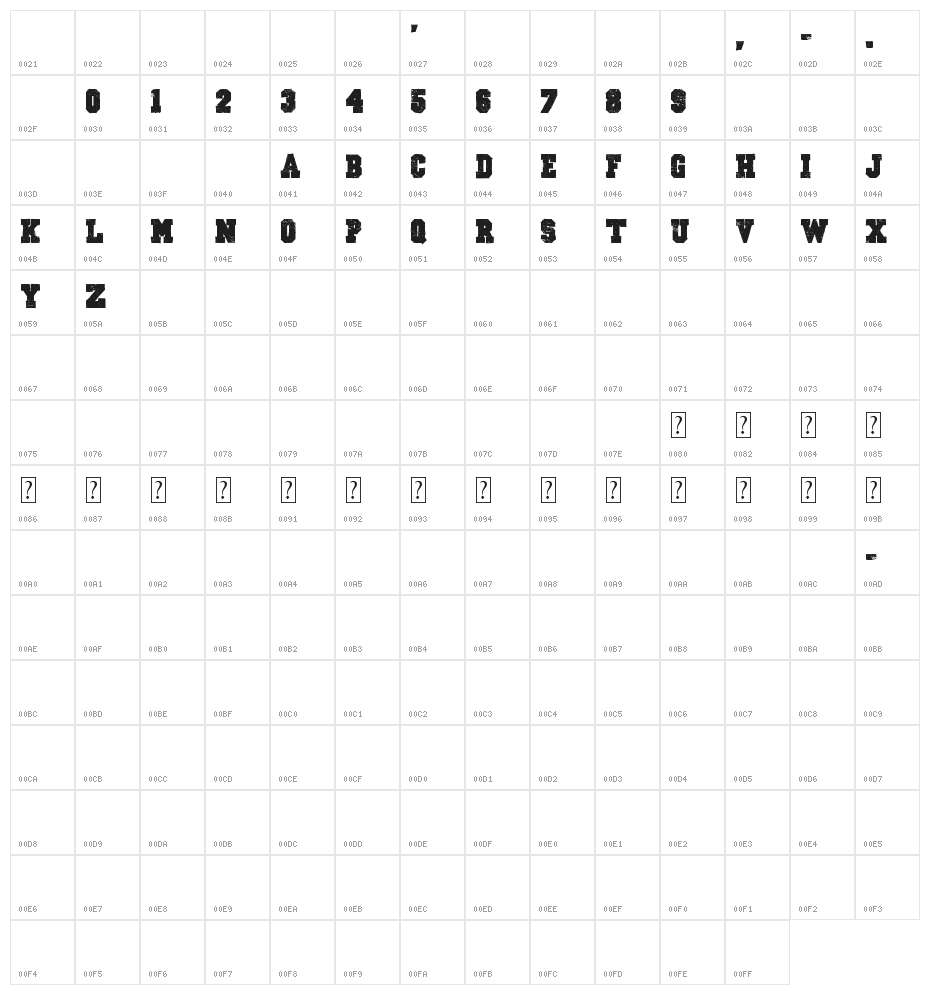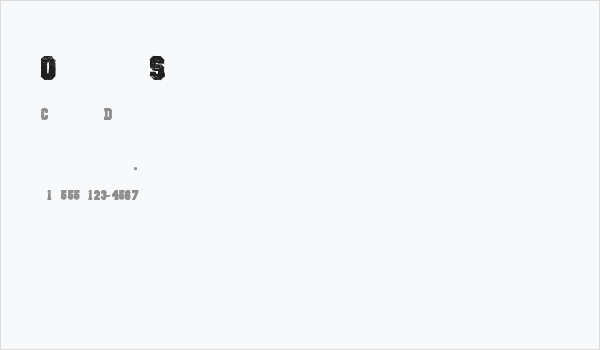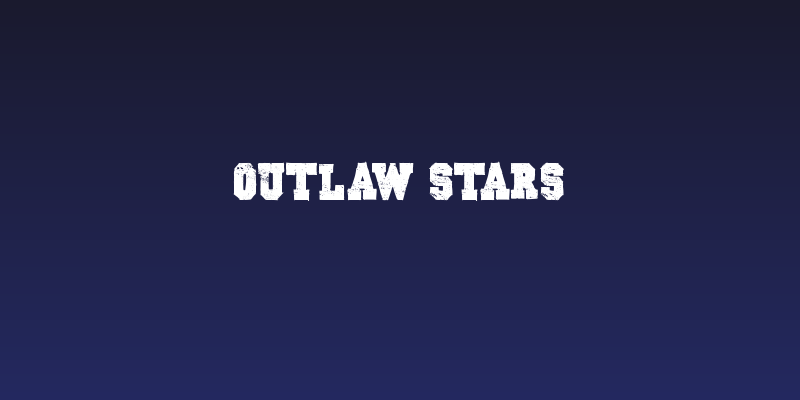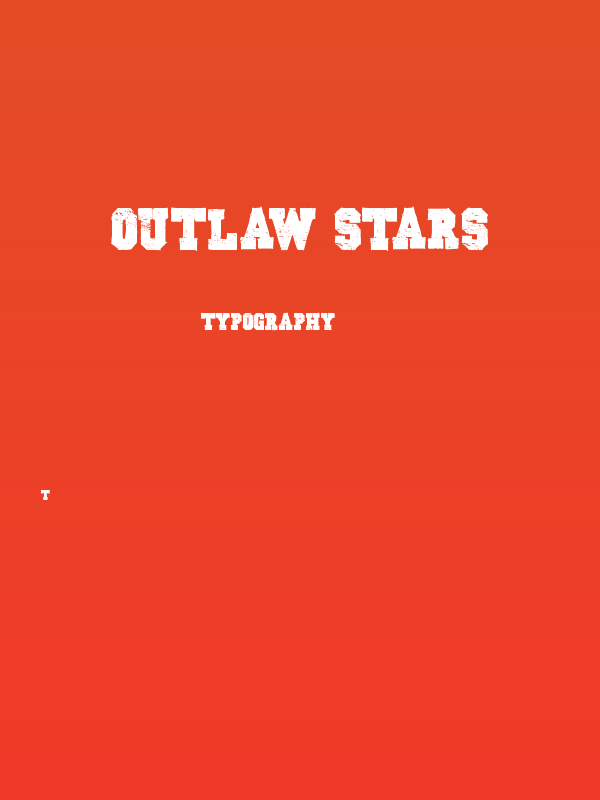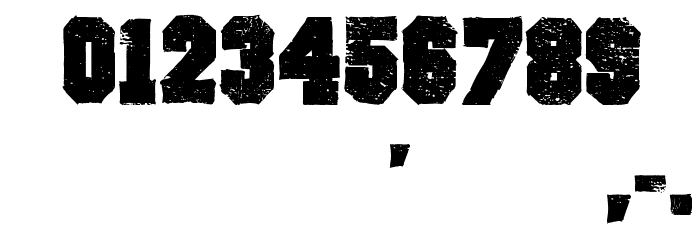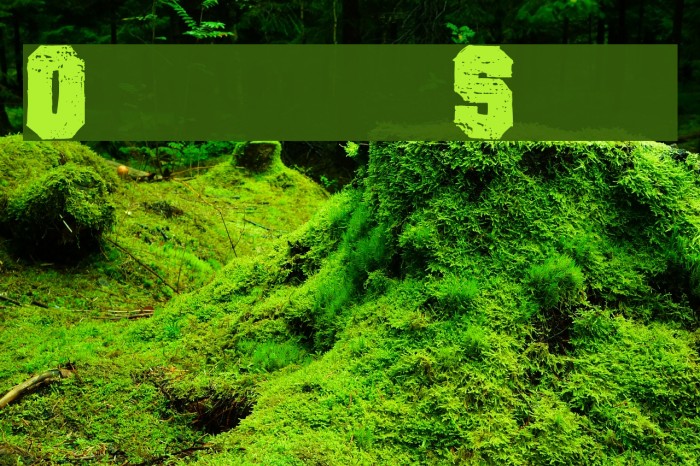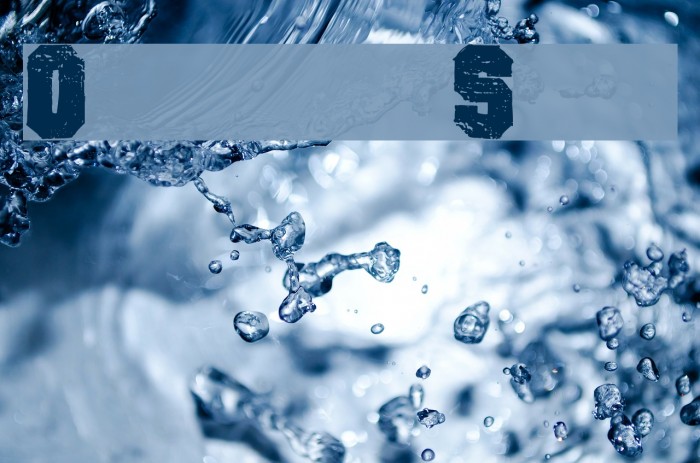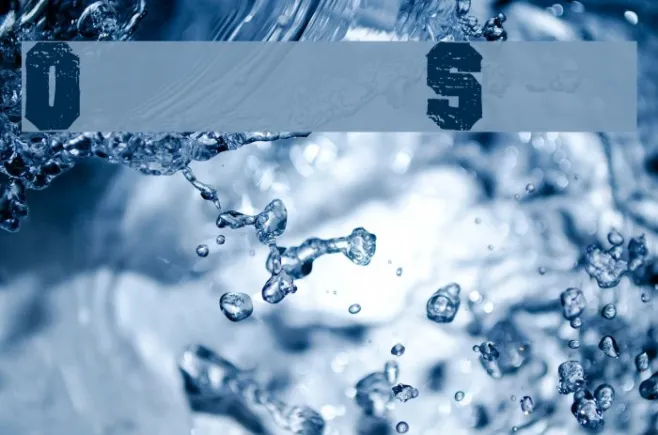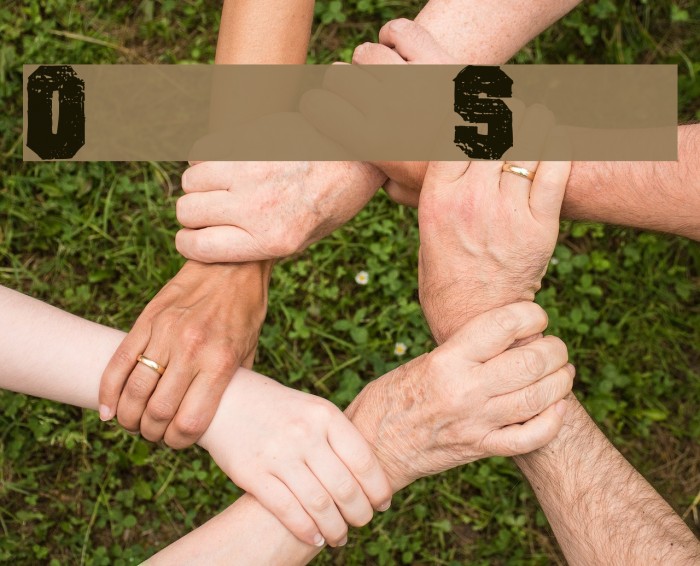
Outlaw Stars Font
This font features a bold, rugged design with a distressed texture that gives it a vintage, worn-out appearance. The characters are blocky and robust, with a strong presence that commands attention. The uppercase letters are particularly striking, with thick strokes and a slightly uneven finish that adds to the rustic charm. The numbers and punctuation marks follow the same bold style, making the font suitable for impactful designs. Its unique texture and boldness make it ideal for projects that require a strong, eye-catching typeface.
| Proposed Projects | Ideal for posters, branding, logos, and any design needing a strong, vintage feel. |